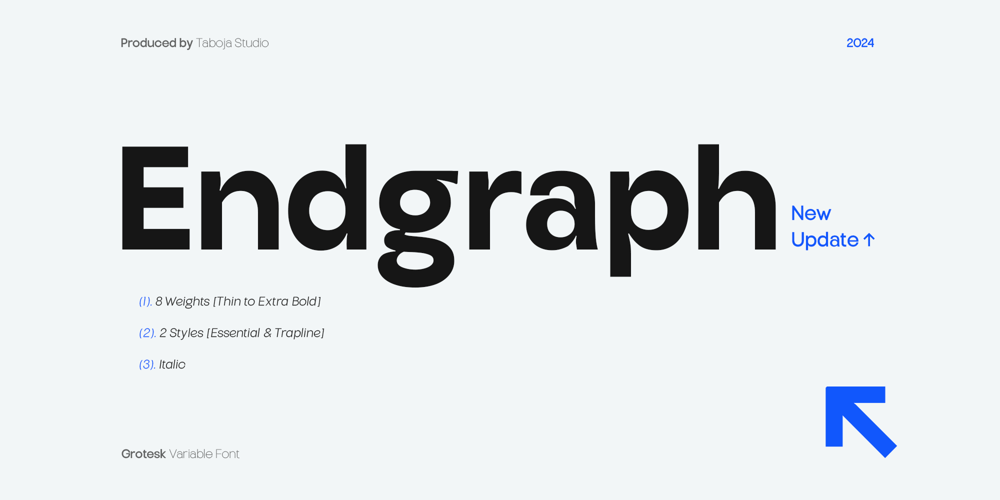
TBJ Endgraph Essential & Trapline Font Family was designed by Yusilo Oktaprima Ardani and published by Taboja Studio. TBJ Endgraph Essential & Trapline contains 32 styles and family package options. BTW it’s New Update Version 2!!!Introducing TBJ Endgraph Essential & Trapline, a sleek and modern sans serif font family that perfectly blends geometric precision with grotesque warmth. With 8 versatile weights, from Thin to Extra Bold, and2 Styles Essential & Trapline. TBJ Endgraph is designed to fit seamlessly into any project, whether it’s a logo, website, or print material. Its clean lines and balanced shapes make it a reliable choice for designers seeking both style and readability.Each weight of TBJ Endgraph adapts effortlessly to various design needs, ensuring a consistent and professional look across all your creative works. From bold headlines to detailed body text, this font family provides the flexibility and elegance you need. Give your projects a contemporary edge with TBJ Endgraph, a font family that’s as flexible as it is attractive.TBJ Endgraph Includes:8 WeightsNew 2 Styles Essential & TraplineAlternates And LigaturesNumerals And PunctuationAccented charactersMultilingual SupportUnicode PUA EncodedTo fully enjoy everything this font has to offer, programs like Adobe Illustrator, Photoshop, or Indesign (and others with OpenType support) will help you get the most out of all the glyphs and features.And if you spot anything unusual or just want to share some feedback, don’t hesitate to let us know! We’re always looking to improve and fine tune.